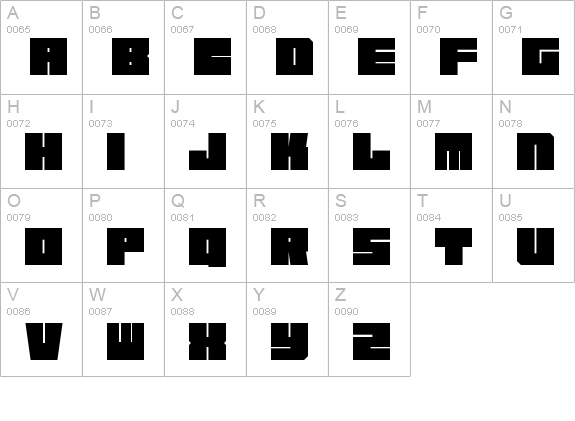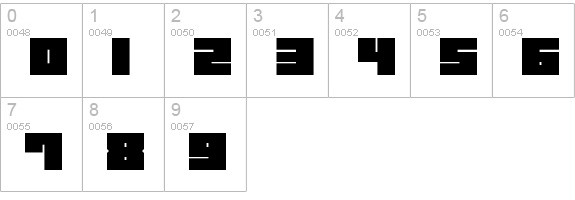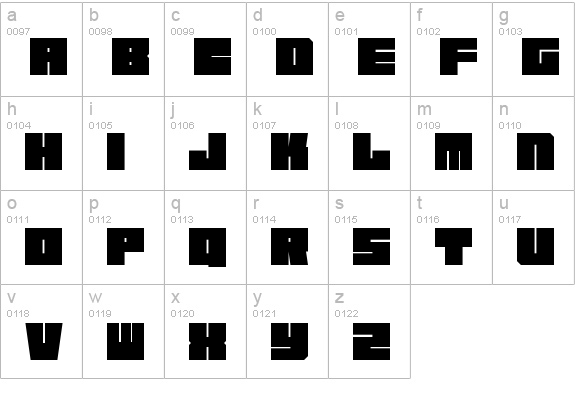
Square Chunks Font Details
Square Chunks is a free for personal use font in the Modern > Techno category, designed by Darrell Flood. It has been downloaded 92 times and is available for Windows, Mac and Linux.
Square Chunks font is a modern and stylish typeface that exudes a strong and bold presence. Its square-shaped characters give it a unique and edgy look, making it perfect for creating eye-catching designs. This versatile font is suitable for various design projects, from logos to posters to branding materials.